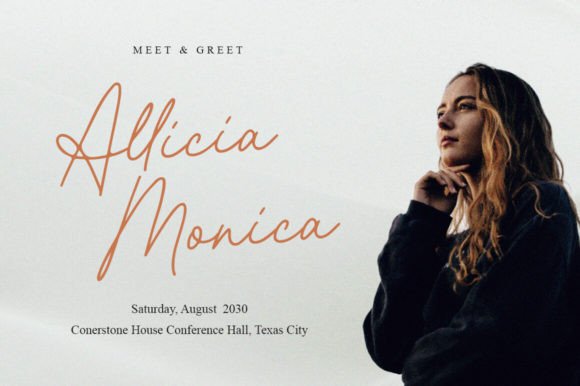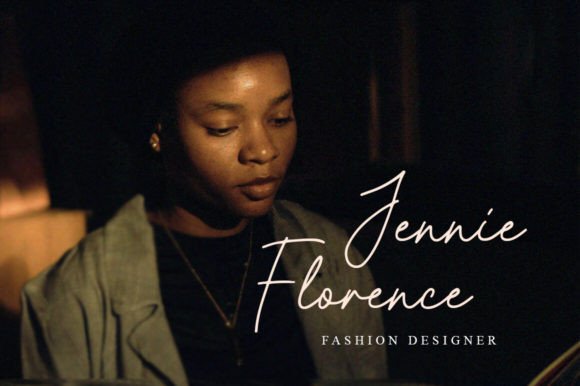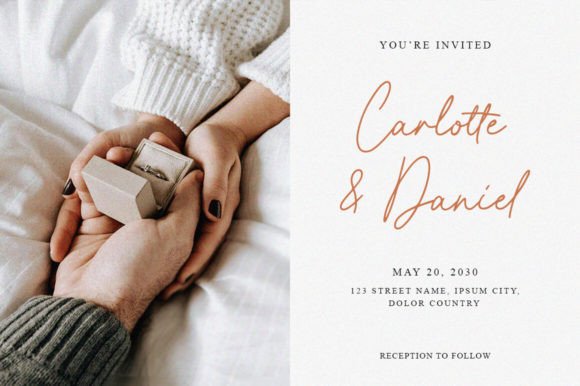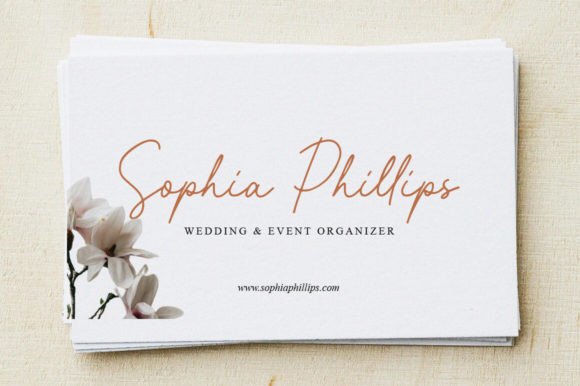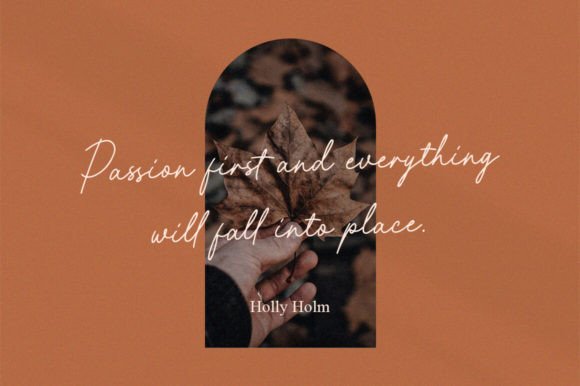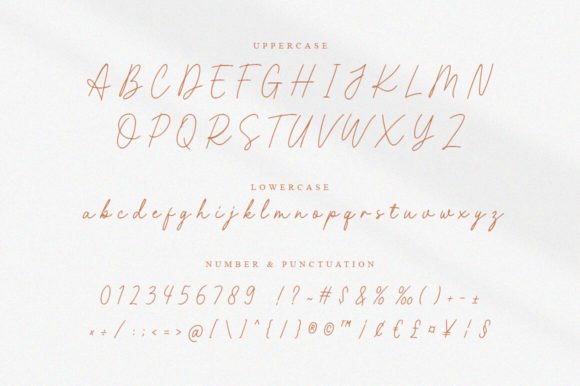
Introduction to Kellison Font
Have you ever stumbled upon the perfect font while working on a creative project, only to realize that it’s just out of your reach? That’s exactly what happened to me when I discovered the Kellison Font. Its elegant, sophisticated design immediately caught my eye, and I knew I had to learn more about it.
As a designer, I know how valuable a high-quality font can be for any project. Whether it’s branding, product packaging, or social media posts, a great font can make all the difference. That’s why I’m excited to share my experience with the Kellison Font, a free download that’s perfect for designers looking for a reliable design resource.
Key Features of Kellison Font
- Designed with a unique, elegant aesthetic, perfect for adding sophistication to your design
- Suitable for a variety of design projects, including logos, branding materials, and print materials
Honest Review: Kellison Font
As a designer, I’m always on the lookout for high-quality design resources to elevate my creative projects. The Kellison Font is one such find that caught my attention. I downloaded it for free and was impressed by its clarity and sophistication.
Here’s what I like about the Kellison Font: ✨ It’s incredibly versatile and can be used for a wide range of design projects, from print to digital. ✨ The font’s modern design makes it perfect for creating a sleek and professional look. ✨ The transparent background allows for seamless integration with images and other design elements.
However, there are a few limitations to consider: ⚠️ The font may not be suitable for projects requiring a more traditional or vintage look. ⚠️ Some users may find the font’s modern style too minimalist for their taste.
Overall, I’m impressed with the Kellison Font’s quality and design versatility. If you’re looking for a modern and sleek font to elevate your creative project, I’d definitely recommend giving it a try. With its free download and transparent background, it’s an excellent addition to any design resource library.
Common Use Cases for Kellison Font
The Kellison Font is a versatile design resource that can be used in a variety of creative projects, including logos, brochures, and social media graphics. Its high-quality design and transparent background make it an ideal choice for designers looking to create professional-looking designs.
Does the Kellison Font come with a transparent background?
Yes, the Kellison Font is a transparent font, which means that it has a transparent background. This makes it easy to use on a variety of backgrounds, from solid colors to images and textures. Simply place the font over your desired background, and you’re good to go!